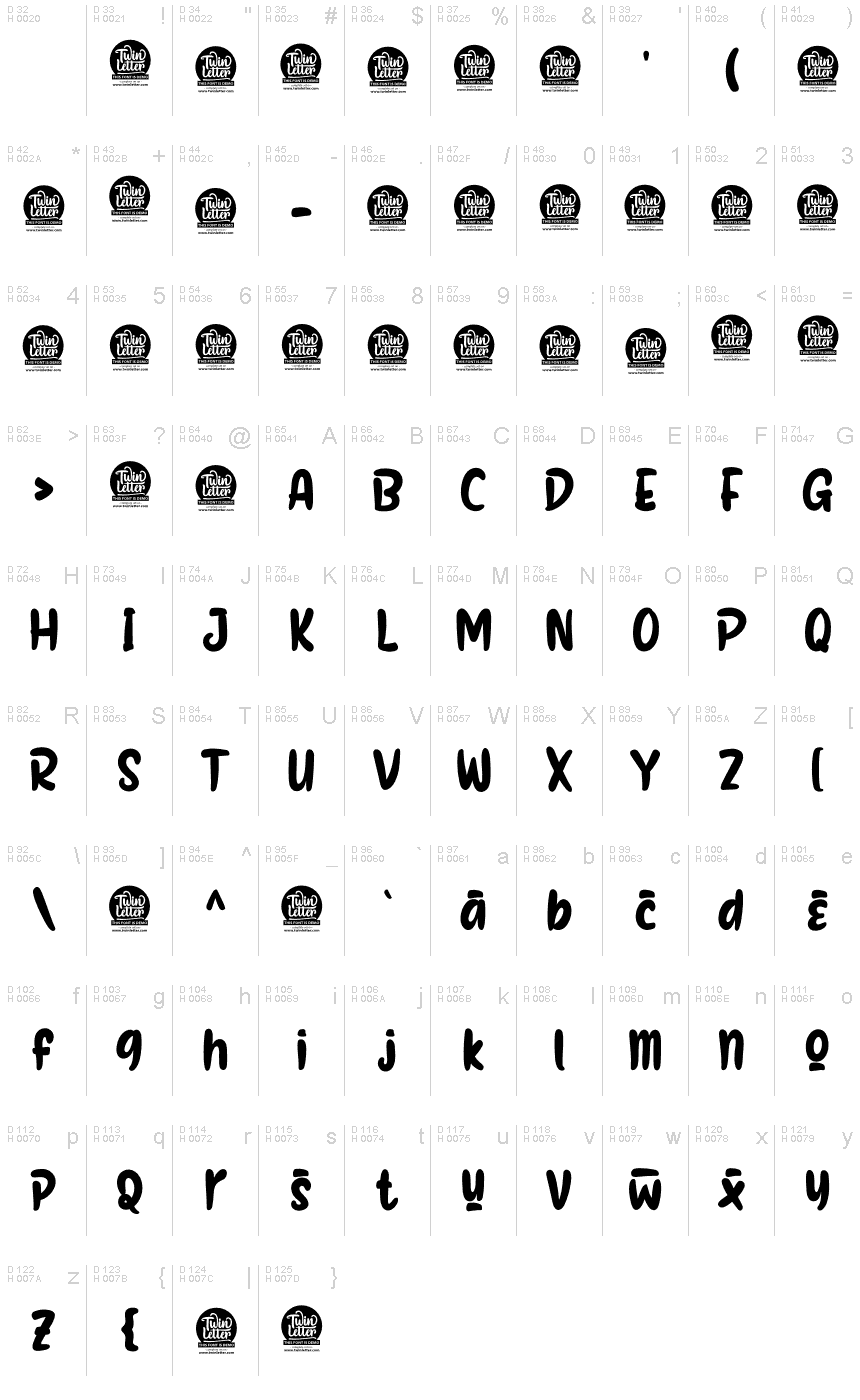
Geyalu Personal Use
Looking for a bold and condensed handwritten font that adds personality and character to your creative projects? Look no further than Geyalu by rozi. This unique typeface is perfect for adding a touch of whimsy to any design, from logos to invitations, packaging to social media graphics. Its distinctive style captures the essence of hand-drawn text with its organic curves and playful flourishes. Geyalu is sure to make your words stand out and leave a lasting impression on your audience. Try it today and see the magic for yourself!